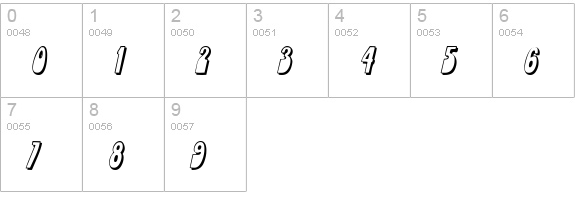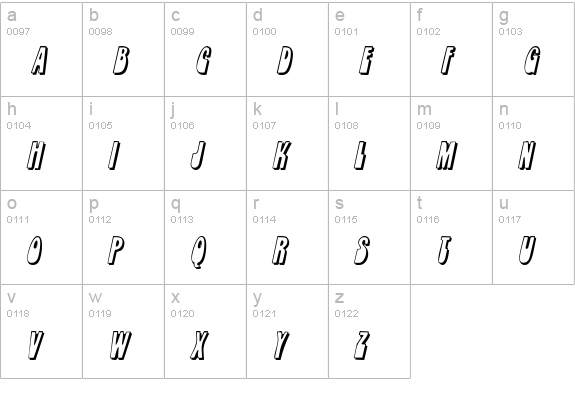
LopplerDisplay Italic Font Details
LopplerDisplay Italic is a distinctive, italic variant in the LopplerDisplay typeface family \xE2\x80\x94 well suited to design and typography projects.